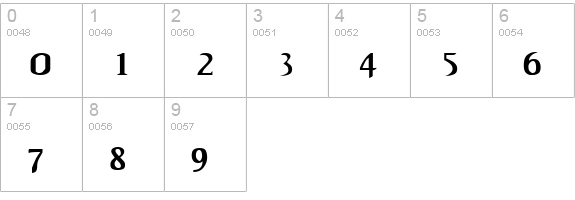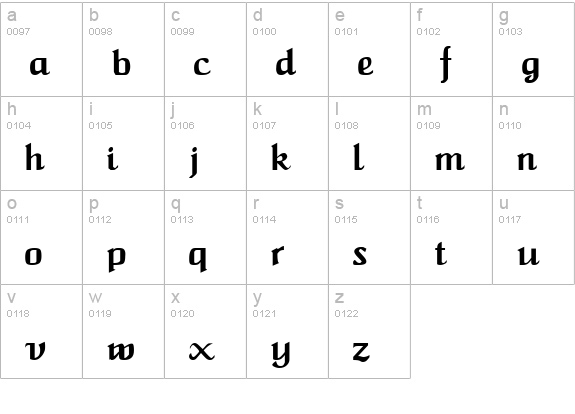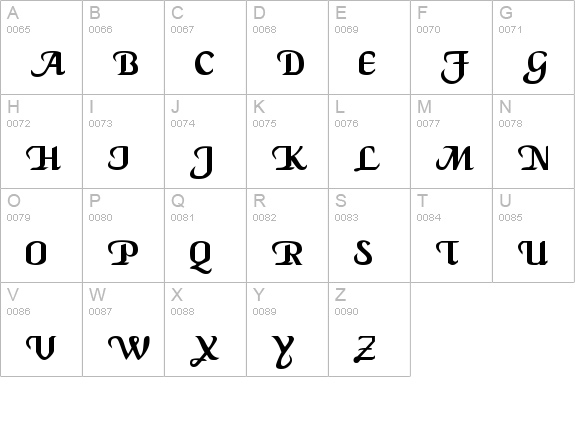
Caligula Regular Font Details
Caligula Regular is the standard, neutral variant in the Caligula typeface family \xE2\x80\x94 well suited to general body text, paragraphs, and standard typographic work.
Caligula Regular font is a modern and stylish typeface that exudes elegance and sophistication. Its clean lines and subtle curves make it perfect for a wide range of design projects, from branding to editorial design. The font's versatility and readability ensure that your message will be conveyed clearly and effectively. What sets Caligula Regular font apart is that it is available for free download at FontsMarket.com. This means that you can easily access this high-quality font without any cost, making it a valuable addition to your font library. Whether you are a seasoned designer looking for a new go-to font or a beginner exploring typography for the first time, Caligula Regular font is a fantastic choice that won't break the bank. Download it now and elevate your designs with this sleek and professional typeface.